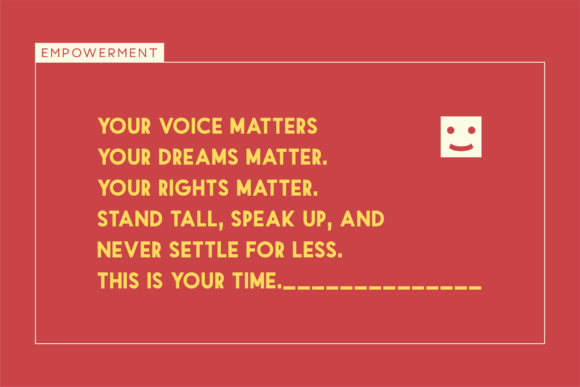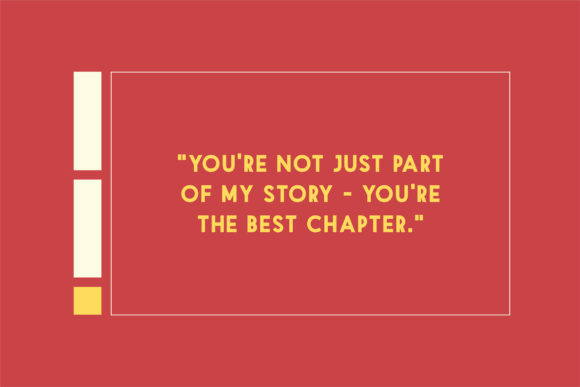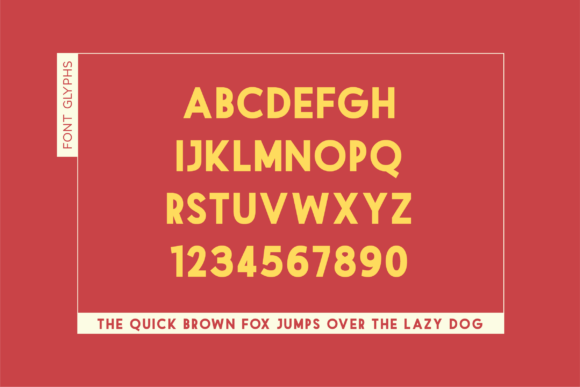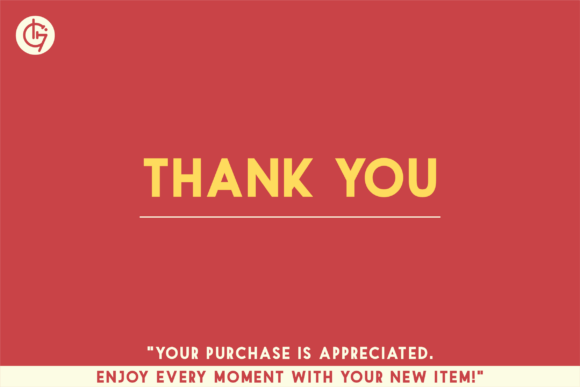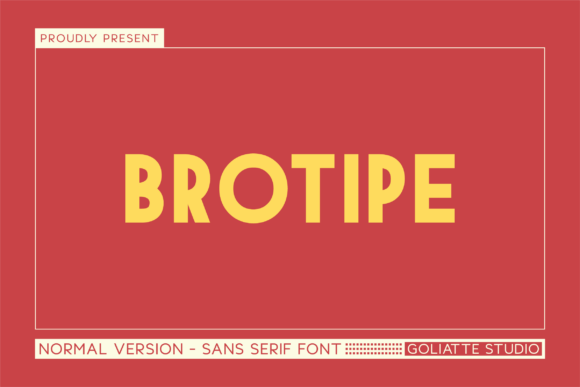
Introducing Brotipe – A Modern Sans Serif Typeface
In the world of design, typography plays a crucial role in conveying messages, expressing creativity, and building brand identities. For designers and crafters, finding the perfect font can be a daunting task. However, if you’re looking for a bold, modern, and versatile typeface, look no further than Brotipe. This all-caps sans serif font is designed to make a statement, exuding strength, authority, and professionalism.
Clean Lines and Minimalist Aesthetic
Brotipe’s design is characterized by its clean lines, minimalist aesthetic, and bold, geometric structure. The font’s sharp, crisp edges give it a confident and professional look, making it perfect for projects that require a sense of sophistication and impact. Whether you’re designing a logo, website, or print material, Brotipe is sure to turn heads.
Versatility and Readability
One of the standout features of Brotipe is its versatility. The font’s strong, geometric structure ensures that it can be used across various mediums, from digital interfaces to high-end branding. Additionally, the all-caps design emphasizes clarity and readability, making it ideal for headlines, posters, and anywhere you need your message to stand out.
Key Features of Brotipe
- All-caps design for maximum impact and emphasis
- Modern, minimalist style with a focus on readability
- Bold, clean lines for a confident and professional look
- Ideal for branding, logos, packaging, and digital design
- Perfect for both large-scale headlines and smaller text blocks
Who is Brotipe for?
Brotipe is perfect for brands, agencies, and designers who want to make a statement with their typography. Whether you’re working on a new brand identity, website design, or print material, this font is sure to elevate your project. Its versatility and readability make it an excellent choice for:
- Branding and logos: Create a strong and memorable brand identity with Brotipe’s bold and modern design.
- Digital design: Use Brotipe for website headers, social media graphics, and other digital materials to add a touch of professionalism and sophistication.
- Print design: Brotipe is perfect for print materials such as brochures, posters, and business cards, where its clean lines and bold design can make a lasting impression.
Why Choose Brotipe?
With so many fonts available, why choose Brotipe? Here are a few reasons why this modern sans serif typeface stands out:
- Unique and memorable: Brotipe’s bold design ensures that your message stands out and leaves a lasting impression.
- Versatile: Use Brotipe across various mediums, from digital to print, without compromising on style or readability.
- Professional and modern: Brotipe’s clean lines and minimalist aesthetic give it a professional and modern look that’s perfect for brands and designers.
Brotipe is a powerful and versatile font that’s perfect for designers and crafters looking to make a statement with their typography. Its bold, modern design, clean lines, and minimalist aesthetic make it an excellent choice for branding, logos, packaging, and digital design. With its all-caps design and focus on readability, Brotipe is sure to elevate your project and leave a lasting impression.